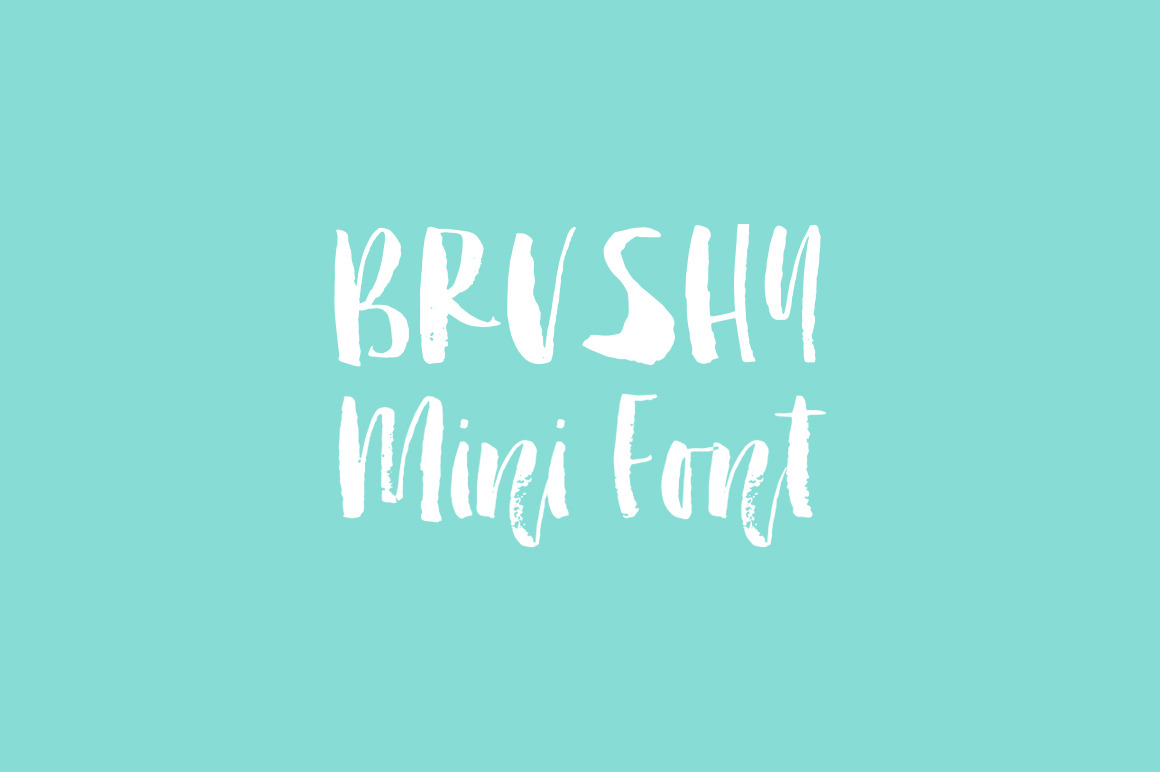
Brushy Mini font
This mini font includes A-Z and a-z (no numbers or symbols)
This type-able version of the Brushy Alphabet is perfect for projects where you're using more text and don't have the time to set PNG files. Because it's vector based, this font does not include transparent watercolor details. Brushy Mini can easily be used with photoshop styles to achieve the watercolor look! To view all characters included in Brush Mini, simply click through the thumbnail images to the left of this caption.